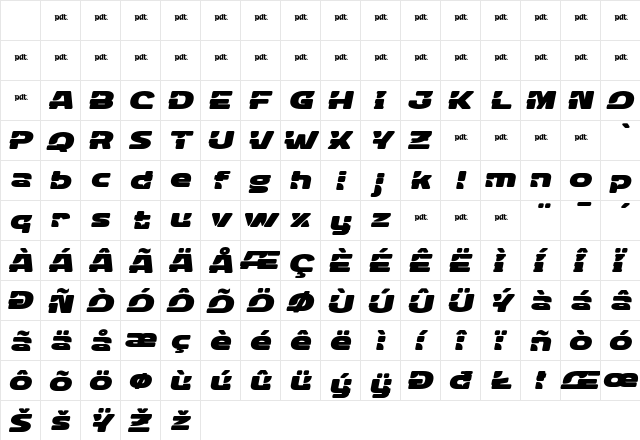
Complete DROPEX Round Slant Regular glyph index. Displaying only characters natively supported by DROPEX Round Slant Regular font.
DROPEX Round Slant softens its letterforms with rounded terminals, giving it an approachable, friendly quality that works well in consumer-facing and digital contexts.
Font Pairing: Pairs well with a rounded or humanist sans for body copy, maintaining the friendly tone without relying on DROPEX Round Slant to carry extended reading.
Pro Tip: Use DROPEX Round Slant for UI elements, app interfaces, and anywhere a friendly, approachable tone needs to be maintained without sacrificing clarity.